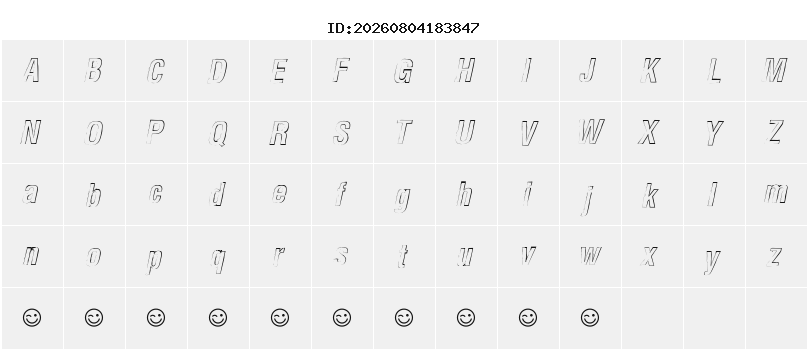
Newside FP Outline Alternate Preview
• Font Name: Newside FP Outline Alternate
• Font ID: AzmiKamarullah: Newside FP Outline Alternate Italic: 2015
• Full Font Name: Newside FP Outline Alternate Italic
• Designer: Azmi Kamarullah
• Manufacturer: Azmi Kamarullah
About Newside FP Outline Alternate.ttf
Newside FP Outline Alternate.ttf is a modern, elegant sans-serif font designed for ultimate readability and visual harmony. Perfect for branding, headlines, web design, and print materials.